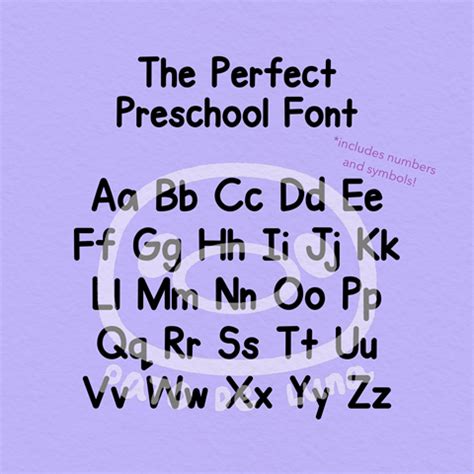
Discover the Perfect Preschool Fonts and Make Learning Fun!
The Benefits of Choosing the Right Fonts
Using the right fonts can have a huge impact on how children learn. Fonts can help make text easier to read, which can help children understand the material better. They can also help to create a more interesting and engaging learning environment. In addition, carefully chosen fonts can add to the overall aesthetics of a classroom, making learning more enjoyable.What Makes a Good Preschool Font?
When selecting a font for a preschool classroom, there are several qualities to look for. The font should be clear and legible, with distinct letterforms that are easy for children to recognize. The font should also be appropriate for the age group, with a style that is not too childish or too mature. Finally, the size of the font should be appropriate for the age group, with larger sizes for younger children and smaller sizes for older children.Discovering the Perfect Preschool Fonts
Finding the perfect preschool font may seem like a difficult task, but with a bit of research, it can be done. There are a number of resources available online that can help you find the perfect font for your classroom. Sites such as Font Squirrel, DaFont, and Google Fonts all offer a wide selection of fonts that are suitable for preschool classrooms.Examples of Popular Preschool Fonts
Here are some examples of popular fonts for preschool classrooms:• Comic Sans: This font has been around for decades, and it is still a favorite among preschool teachers. It is a fun font with a playful look that appeals to young children.• Open Dyslexic: This font was designed specifically with dyslexic learners in mind. It is a sans serif font with distinct letter shapes that are easy to distinguish.• PT Sans: This popular sans serif font is easy to read and has a clean, modern look. It is a great font for preschoolers who are just beginning to learn to read.• Lobster: This bold, playful font is perfect for preschool classrooms. It is a great way to add a bit of fun and whimsy to learning materials.• Handwriting Fonts: Handwriting fonts are a great way to make learning fun. There are a variety of handwriting fonts to choose from, so you can find the perfect one for your classroom.Making Learning Fun with Fonts
Using the right fonts can help to make learning more fun for preschoolers. By using fonts that are easy to read, you can help children understand the material better. You can also make learning more engaging by using fonts that are playful and fun. This will help to keep children engaged and interested in what they are learning.Creating a Positive Learning Environment
Using the right fonts can also help to create a positive learning environment. Fonts that are easy to read and appropriate for the age group can help children to feel more comfortable in the classroom. Fonts that are fun and playful can help to make learning more enjoyable, which can help children to stay motivated and engaged.Point of View
Choosing the right fonts for a preschool classroom is an important task. The right fonts can help to make learning easier and more enjoyable for children, which can make a huge difference in their educational experience. With a bit of research, you can find the perfect fonts for your classroom and make learning fun for your students.for Blog Visitors